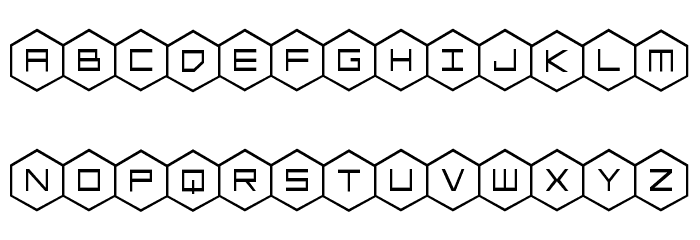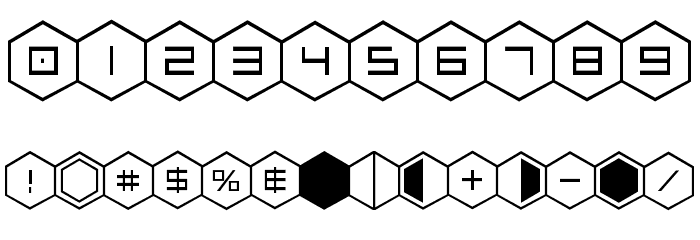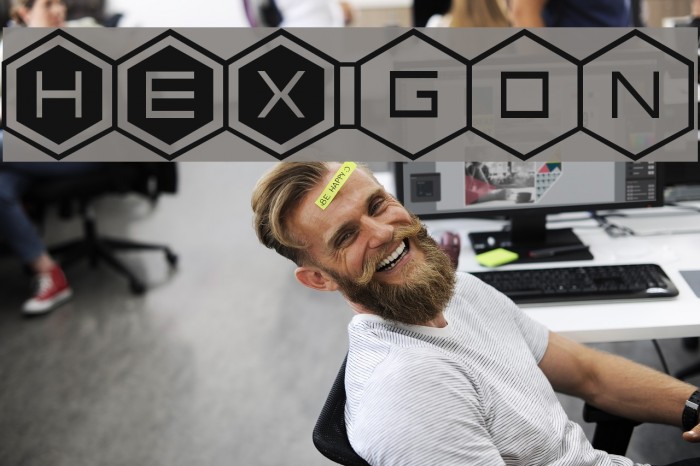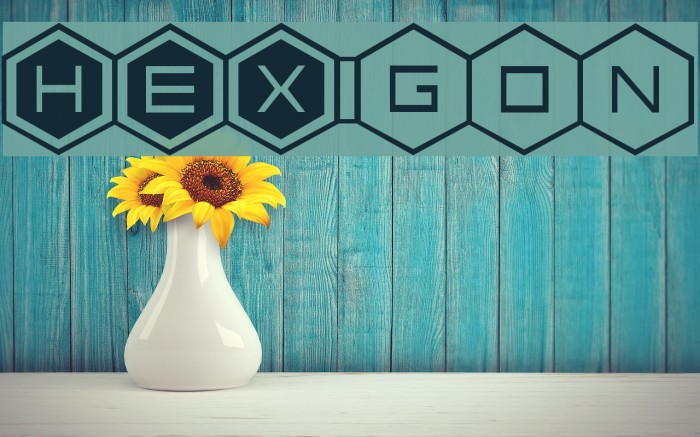
HEX:gon Font
This font features a unique hexagonal design where each character is enclosed within a hexagon. The uppercase letters are bold and striking, with a geometric style that emphasizes symmetry and uniformity. The lowercase letters maintain the same hexagonal enclosure, providing a consistent visual theme. Numbers and special characters are also included, each fitting perfectly within the hexagonal shape. The font's design is both modern and futuristic, making it ideal for projects that require a distinctive and eye-catching typeface. The consistent use of hexagons creates a cohesive look, while the bold lines and shapes ensure readability and impact.
A bold, geometric font with characters enclosed in hexagons, offering a modern and futuristic style.
- Font: HEX:gon
- Proposed Projects: Ideal for branding, logos, posters, and any design project that requires a modern and unique typeface.
- Use Case: Logos, Posters, Branding